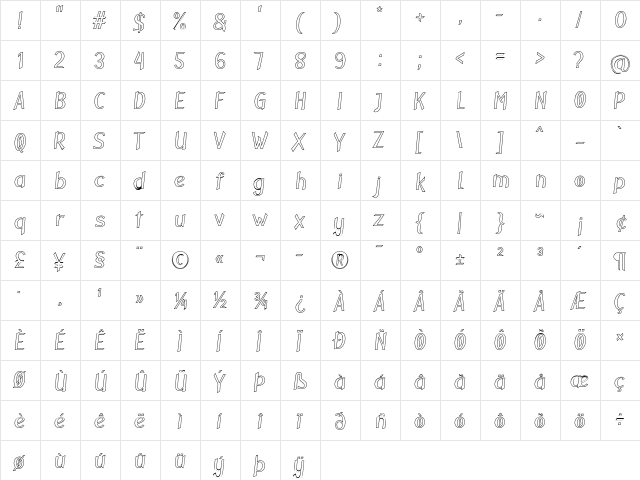
Ataro Outline Regular
Design Context for Ataro Outline Typeface
Ataro Outline is built around its visual character rather than neutral utility — its distinctive forms are designed to make an impression at display sizes.
Font Pairing: Pair with a clean neutral sans-serif for body copy to let Ataro Outline's character lead without overwhelming the composition.
Pro Tip: Treat Ataro Outline as the centrepiece of your typographic hierarchy. One strong heading set in a decorative face can carry an entire layout.